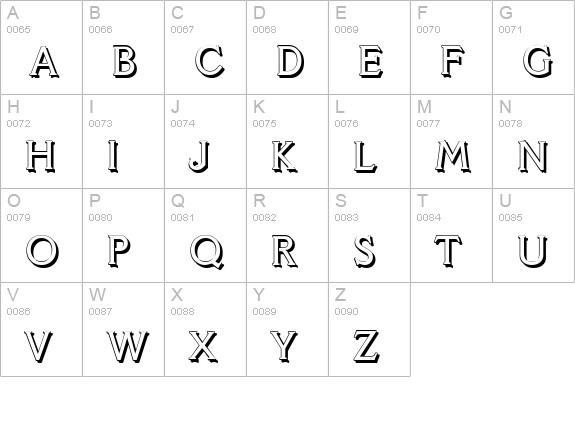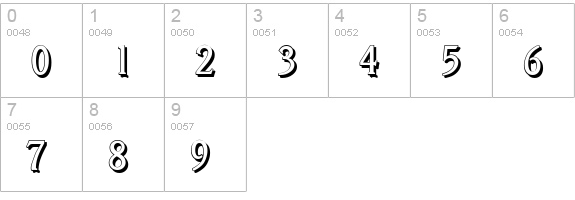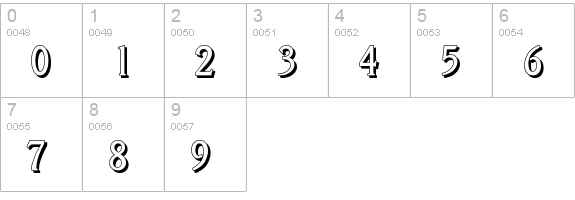
VeracruzShadow-Regular is the standard, neutral variant in the VeracruzShadow typeface family \xE2\x80\x94 well suited to general body text, paragraphs, and standard typographic work.
VeracruzShadow-Regular is a unique and versatile font that combines elegance with a touch of playfulness. Its distinctive shadowed design adds depth and character to any text, making it perfect for a wide range of projects. This font is ideal for titles, headlines, posters, and more, where you want to make a bold statement. What makes VeracruzShadow-Regular even more appealing is that it is completely free to download at FontsMarket.com. Whether you're a designer looking to add a creative flair to your work or a casual user in need of a stylish font, VeracruzShadow-Regular is the perfect choice. Don't miss out on this opportunity to enhance your projects with this stunning and eye-catching font. Download it today and let your creativity shine!